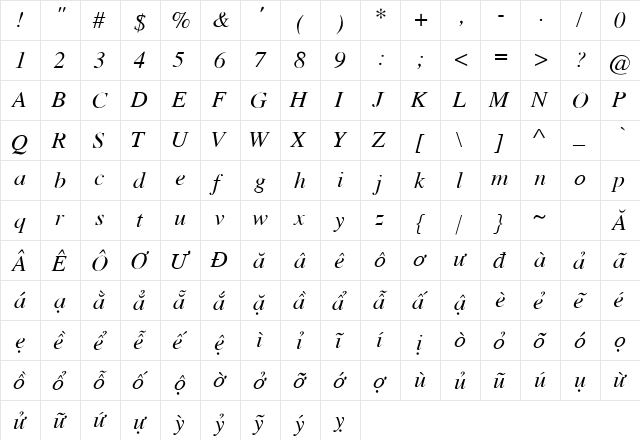
.VnTime Italic
Design Context for .VnTime Typeface
.VnTime is a composed and adaptable typeface that performs quietly and consistently across a wide range of design contexts. The dynamic lean of this cut emphasises speed and emphasis in any layout.
Pro Tip: Try .VnTime for annotation and caption copy alongside an upright companion — the contrast in angle creates a dynamic but ordered typographic system.